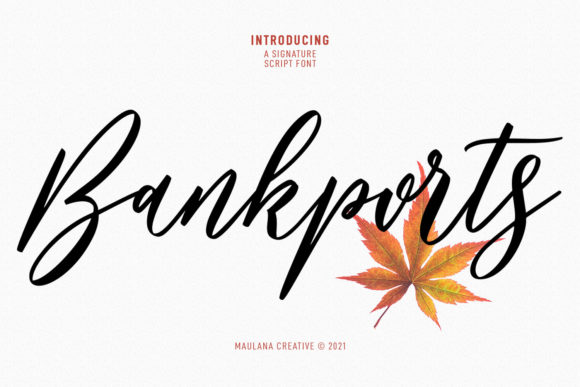
Behold, the Bankports Signature Font – a calligraphic masterpiece that weaves together elegance and charm, leaving an indelible mark on your creative endeavors. This script font, crafted by Maulana Creative, is more than just a collection of letters; it's an invitation to express your individuality, to let your words dance across the page with an air of sophistication and grace.
Immerse yourself in the world of Bankports Signature, where each stroke and swirl tells a story, where your words become works of art. Let your imagination soar as you explore its endless possibilities, from wedding invitations that whisper romance to business cards that exude professionalism. The versatility of this font is truly remarkable, adapting seamlessly to a myriad of design projects, each one infused with a touch of elegance and charm.
Picture this: a wedding invitation adorned with Bankports Signature, the letters flowing together like a gentle melody, inviting guests to a celebration of love and joy. The thank-you cards, bearing your heartfelt gratitude, carry the same grace and charm, leaving a lasting impression on recipients. Quotes, greeting cards, and logos alike come alive when graced with this font, each one imbued with a unique personality that reflects your style and vision.
Bankports Signature is more than just a font; it's an experience, a journey into the realm of creative expression. With its timeless beauty and versatility, it elevates your designs to new heights, captivating your audience with its effortless elegance. Embrace the allure of Bankports Signature and watch as your words transform into works of art, leaving an indelible mark on the hearts and minds of those who encounter them.